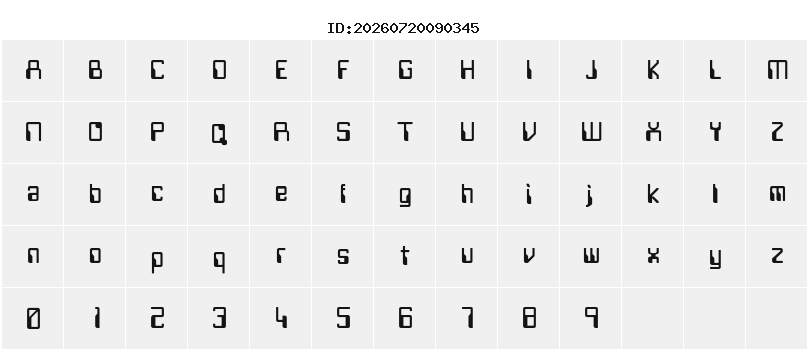
Future Preview
• Font Name: Future
• Full Font Name: Future
• PostScript Name: Future
About Future.ttf
Future.ttf is a modern, elegant sans-serif font designed for ultimate readability and visual harmony. Perfect for branding, headlines, web design, and print materials.